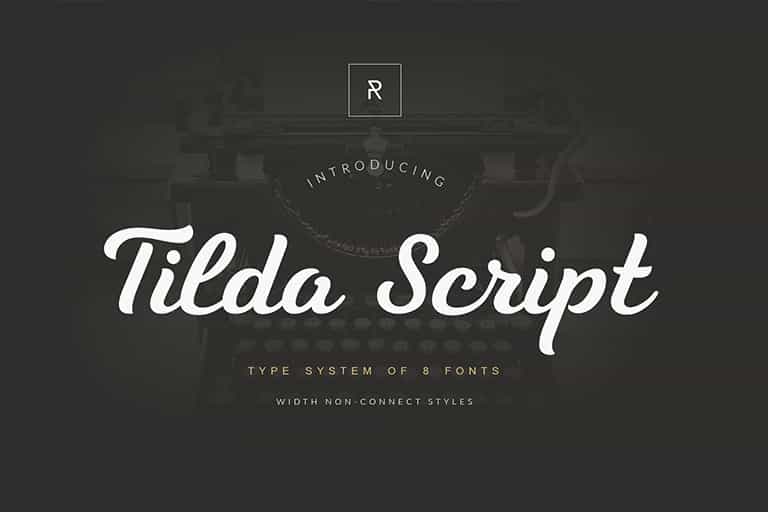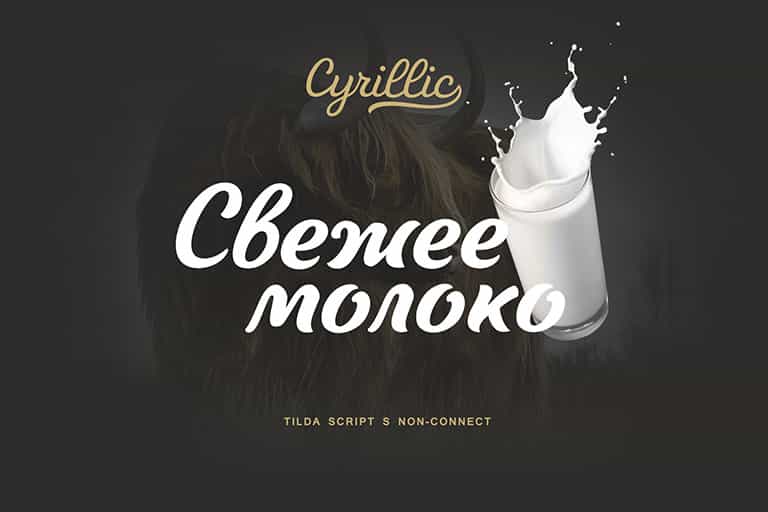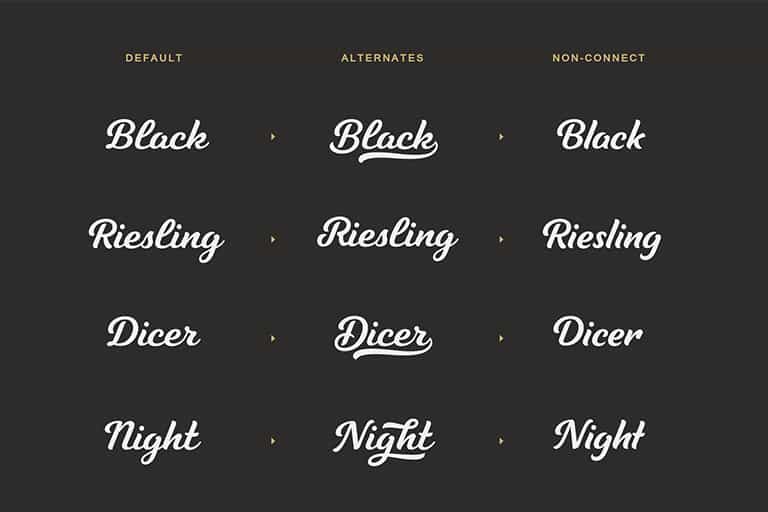
Discover Tilda Script Font, part of the Brush Calligraphy collection—a versatile and unique font perfect for adding a personal touch to your projects. Download it for free and enjoy crafting designs with style, from invitations to social media posts. This font is available exclusively for personal use, giving you the freedom to create without limits. Unlock your creativity with Tilda Script Font today!
Tilda Script Family/Clean Script awesome is a clean and lining script with regular and non-connect versions in four weights. With this family you can craft solid logotypes with a unique look, set posters and ads, and even run longer lines of copy on packaging.